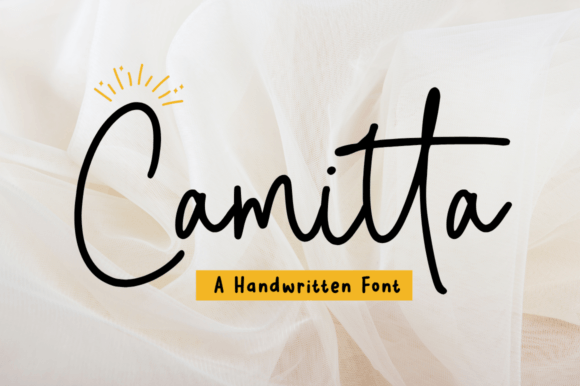
Camitta Font: The Epitome of Romantic Handwritten Elegance
In the world of typography, few fonts manage to capture the essence of romance and charm as effortlessly as Camitta. This lovely handwritten script font is a masterpiece of elegance, designed to bring a touch of sophistication and intimacy to any design project. With its graceful strokes and delicate curves, Camitta is the perfect choice for anyone looking to infuse their work with a sense of warmth and genuineness.
The Characteristics of Camitta Font
Camitta is more than just a font; it’s an experience. Its handwritten nature gives it a unique, personal feel that is hard to replicate with more traditional typography. Here are some of the key characteristics that make Camitta stand out:
- Graceful Strokes: Each letter in Camitta is crafted with care, featuring strokes that flow smoothly into one another. This creates a sense of continuity and fluidity, making the text a pleasure to read.
- Delicate Curves: The curves in Camitta are meticulously designed to add a touch of elegance and sophistication. These curves give the font its distinctive romantic feel, making it perfect for projects that require a bit of charm.
- Handwritten Elegance: The essence of Camitta lies in its handwritten elegance. It strikes a perfect balance between casualness and refinement, making it suitable for a wide range of applications.
Perfect for Romantic Projects
Camitta’s romantic and charming nature makes it the ideal choice for projects that aim to evoke feelings of love and intimacy. Here are some of the ideal applications for Camitta:
- Wedding Invitations: Give your wedding invitations a personal touch with Camitta. Its elegant and romantic feel sets the tone for a memorable and sophisticated wedding celebration.
- Love Letters: In the digital age, love letters have become a rarity. Camitta brings back the charm of handwritten love letters, making digital communications feel more personal and heartfelt.
- Romantic Quotes: Whether you’re designing a social media post, a blog article, or a graphic, Camitta can help you convey romantic quotes with style and elegance.
Adding a Touch of Sophistication to Your Designs
Camitta is not just limited to romantic projects. Its versatility and elegance make it suitable for a wide range of design applications. Here are some ways you can use Camitta to add a touch of sophistication to your work:
- Branding: Give your brand a personal touch with Camitta. Its unique and elegant feel can help you stand out in a crowded market.
- Packaging: Add a touch of luxury to your product packaging with Camitta. Its sophisticated feel can elevate your brand and make your products more appealing.
- Marketing Materials: From brochures to flyers, Camitta can help you create marketing materials that are both elegant and effective.
Why Choose Camitta?
With so many fonts available, why should you choose Camitta? Here are some compelling reasons:
- Unique and Personal: Camitta’s handwritten nature gives it a unique and personal feel that is hard to find in more traditional fonts.
- Romantic and Elegant: Its romantic and elegant feel makes it perfect for projects that require a touch of sophistication and charm.
- Versatile: Camitta is versatile and can be used in a wide range of design applications, from romantic projects to more traditional branding and marketing materials.
Camitta is more than just a font; it’s a way to bring elegance, romance, and sophistication to your design projects. With its graceful strokes, delicate curves, and handwritten elegance, Camitta captures the essence of romance and charm. Whether you’re working on a wedding invitation, a love letter, or a branding project, Camitta is the perfect choice for anyone looking to infuse their work with a touch of warmth and genuineness.